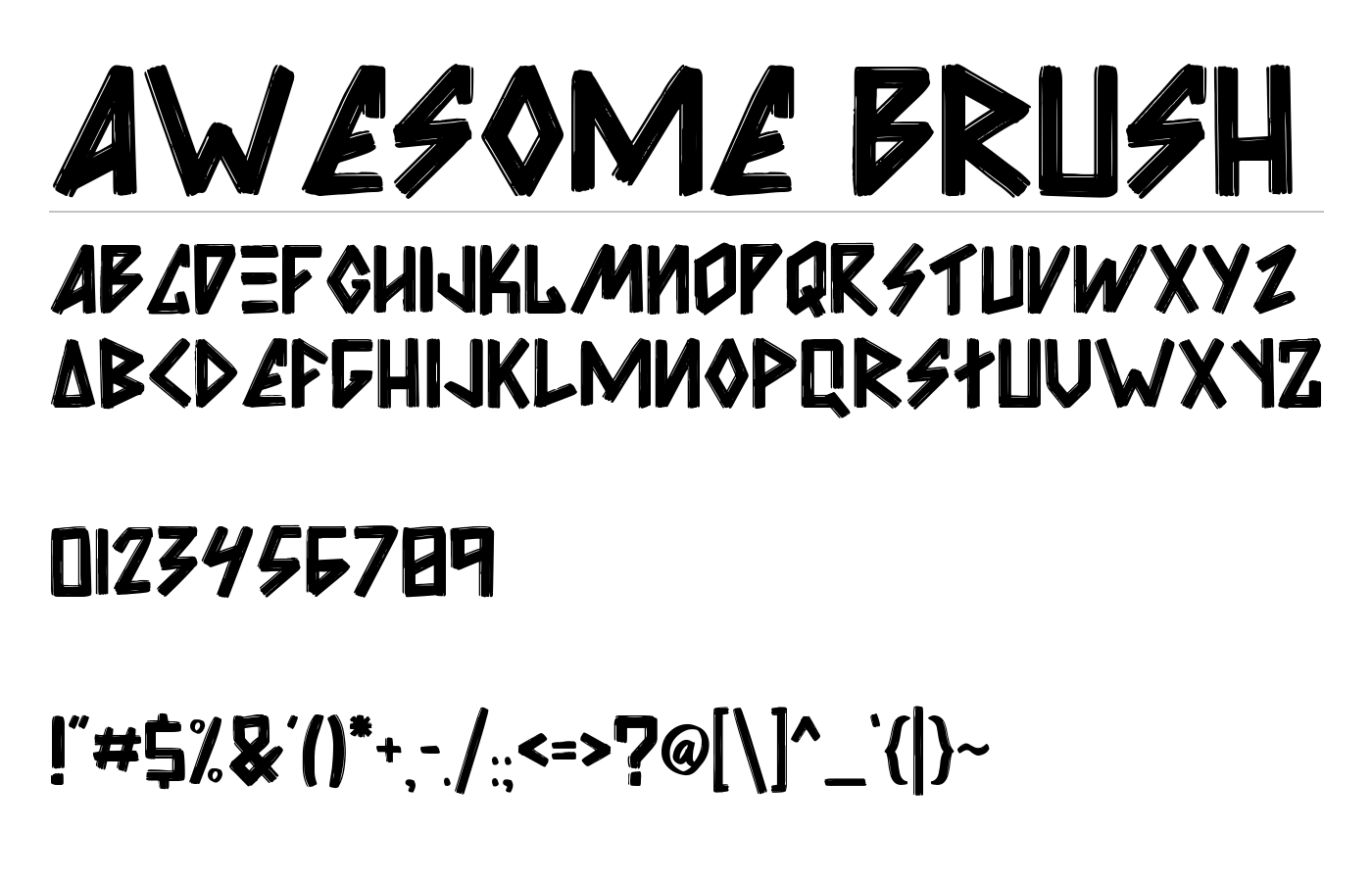
Awesome Brush Font is an energetic, bold brush script with a hand-painted feel, featuring rough, uneven edges and strong angular strokes that create a dynamic, edgy look. Its uppercase-only design and tightly packed letterforms give it a striking personality, perfect for projects seeking a rebellious, creative vibe. This font works great for eye-catching headlines, posters, brand logos, and designs in music, streetwear, or urban culture where a raw, artistic expression is needed.
Awesome Brush Font
About Awesome Brush Font
| Font family | Awesome Brush Font |
| Designer | Sigit Dwipa Raharjo |